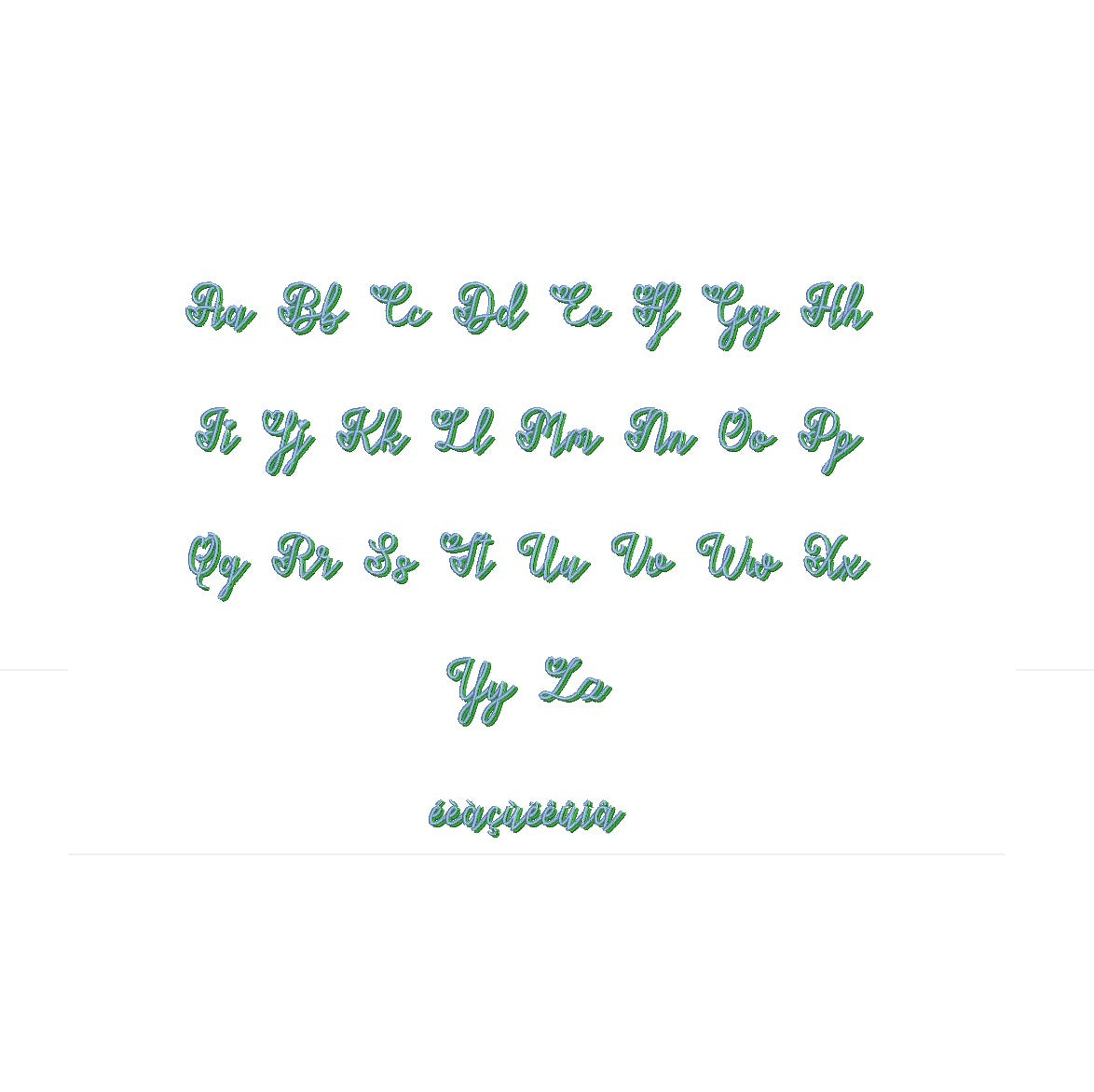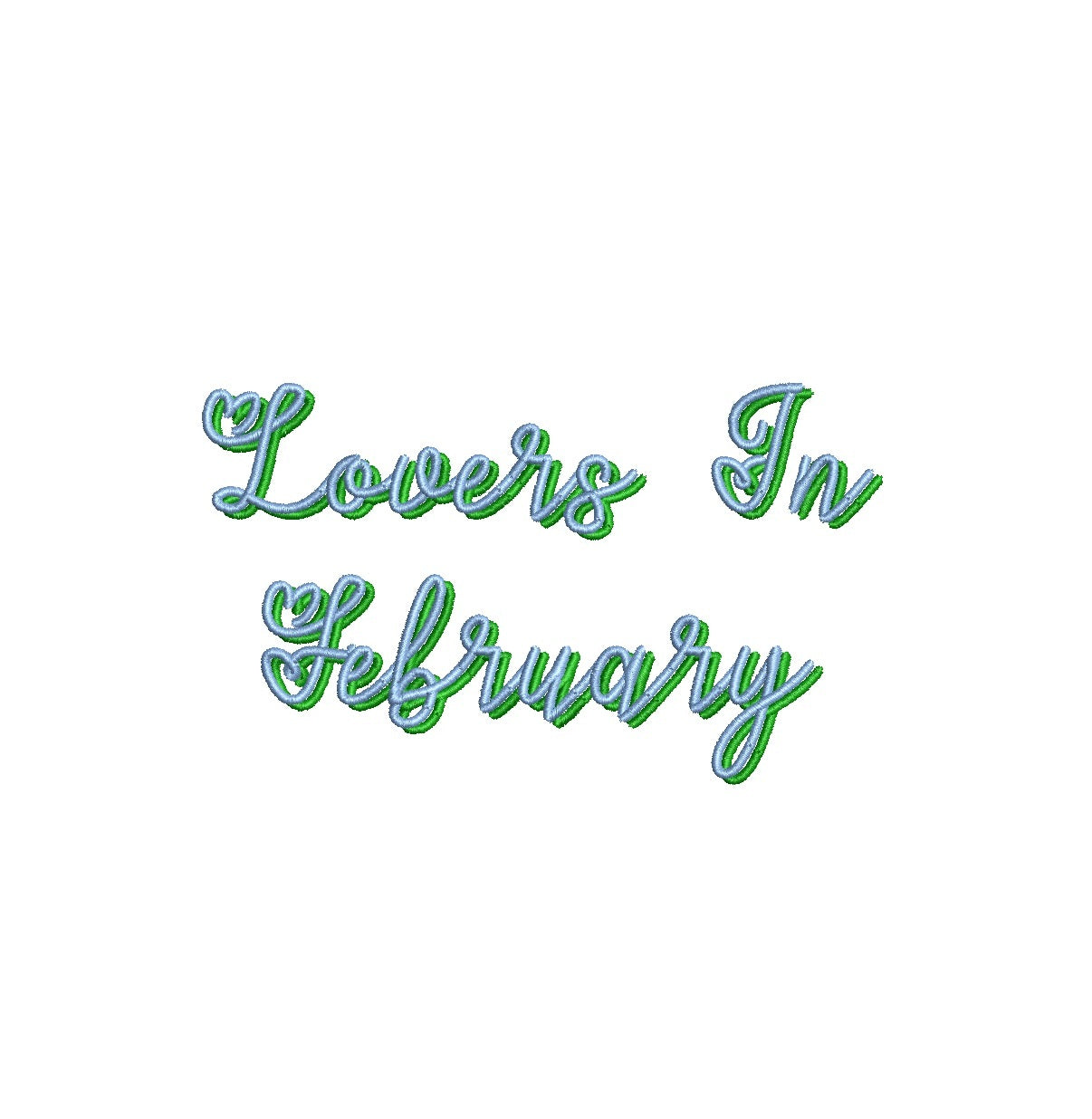
Elevate your embroidery with the romantic Lovers In February Shadow ESA font. Crafted for Wilcom Studio e4.5.6 and Hatch 3 versions and beyond, this font seamlessly blends passion and compatibility. Create heartfelt designs with its enchanting shadow effect, adding depth and emotion to your lettering. Perfect for various applications, from love-inspired motifs to elegant text layouts. Unleash your creativity as the Lovers In February Shadow ESA font enriches your embroidery. Elevate your creations and leave a lasting impression. Choose this font to infuse your designs with love, redefining your embroidery artistry with a touch of romantic flair.